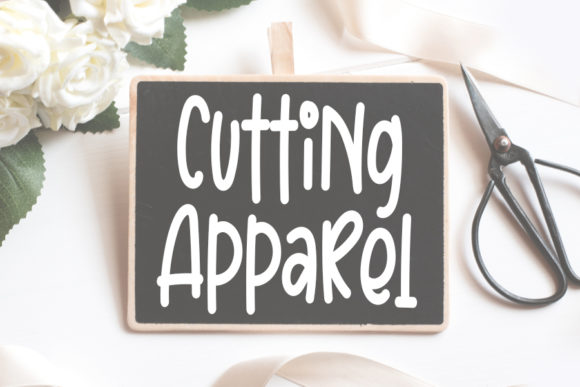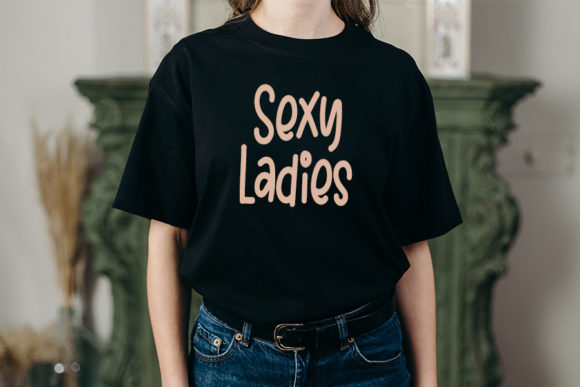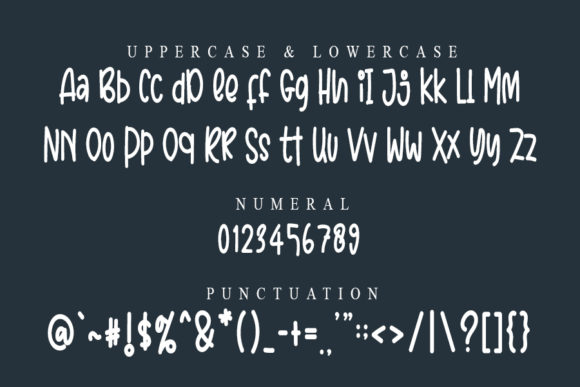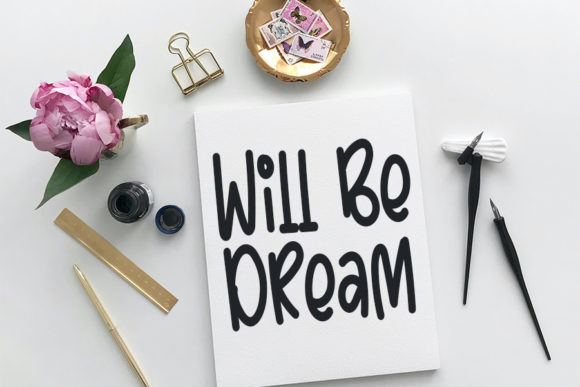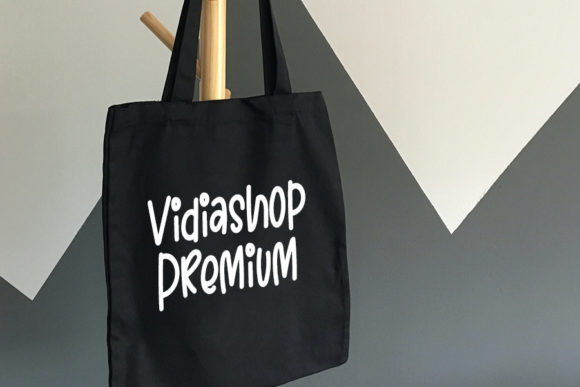
Corn Kernels Font: Elevate Your Designs with a Modern Twist
In the world of typography, fonts play a crucial role in bringing creative ideas to life. For designers, crafters, and DIY enthusiasts, finding the perfect font can be a daunting task. However, if you’re looking for a modern and versatile display font, look no further than Corn Kernels. This all-round font is designed to turn any creative project into a true piece of art, making it perfect for Instagram, calligraphy scripts, and more.
What is Corn Kernels Font?
Corn Kernels is a contemporary display font that boasts a unique and stylish aesthetic. Its modern design makes it an excellent choice for a wide range of creative projects, from social media graphics to DIY crafts. The font’s versatility allows it to be used in various contexts, ensuring that your designs stand out from the crowd.
Key Features of Corn Kernels Font
- Modern Design: Corn Kernels features a sleek and modern design that will elevate your creative projects.
- All-Round Versatility: This font is perfect for various applications, including Instagram graphics, calligraphy scripts, and DIY projects.
- Easy to Read: Despite its unique design, Corn Kernels is easy to read, making it suitable for both digital and print materials.
- High-Quality: The font is designed with high-quality craftsmanship, ensuring that it looks great in any context.
Uses of Corn Kernels Font
Corn Kernels font can be used in a variety of creative projects, including:
- Instagram Graphics: Create stunning Instagram posts and stories with Corn Kernels font.
- Calligraphy Scripts: Use Corn Kernels for calligraphy scripts and add a touch of elegance to your DIY projects.
- DIY Crafts: Perfect for crafters, Corn Kernels font can be used for various DIY projects, such as handmade cards, gift tags, and more.
- Branding and Marketing: Corn Kernels font can also be used for branding and marketing materials, such as logos, brochures, and business cards.
Why Choose Corn Kernels Font?
With so many fonts available, why choose Corn Kernels? Here are a few reasons:
- Unique Design: Corn Kernels font boasts a unique and stylish design that will set your creative projects apart.
- Versatility: This font can be used in various contexts, making it a great addition to your font library.
Tips for Using Corn Kernels Font
To get the most out of Corn Kernels font, here are a few tips:
- Experiment with Colors: Try pairing Corn Kernels font with different colors to create stunning visual effects.
- Play with Sizes: Experiment with different font sizes to add emphasis and create visual hierarchy.
- Combine with Other Fonts: Try pairing Corn Kernels font with other fonts to create a unique and stylish look.